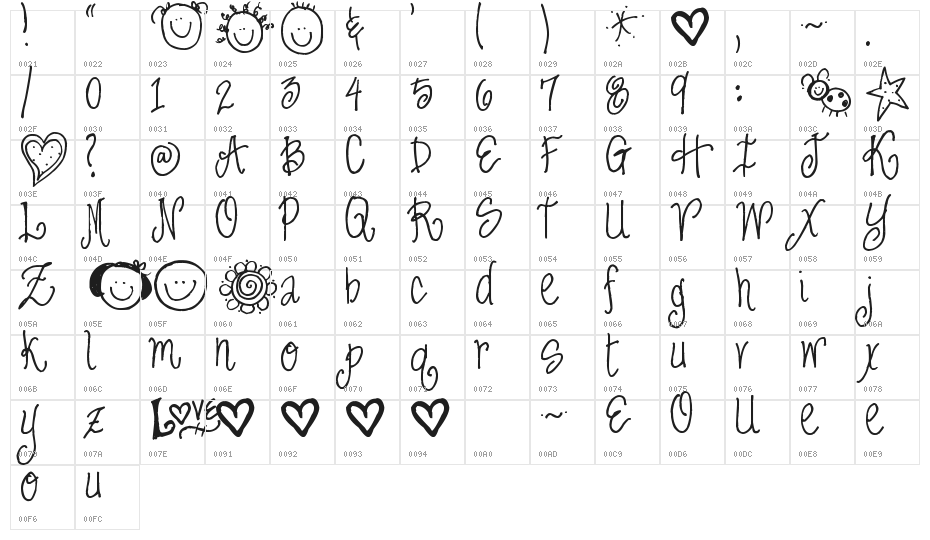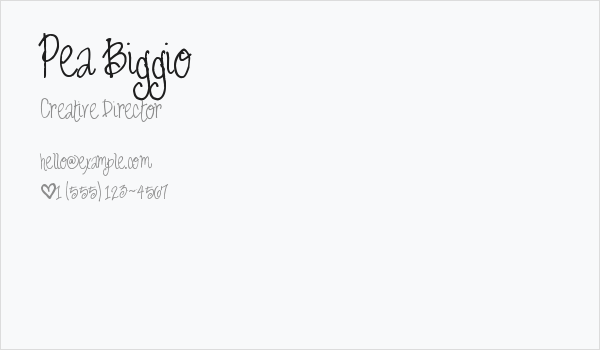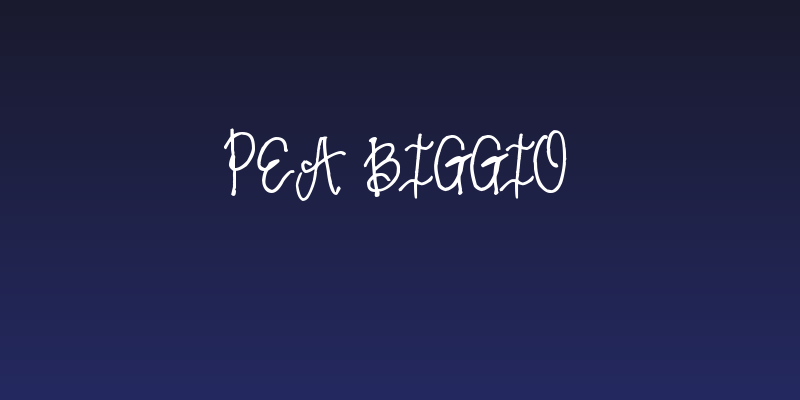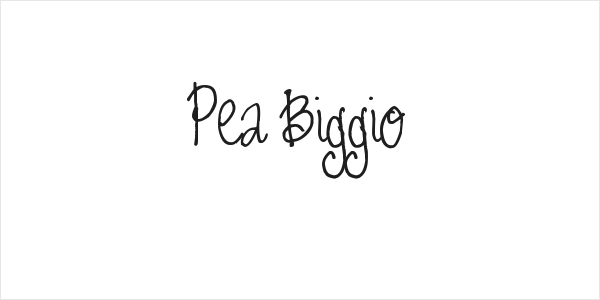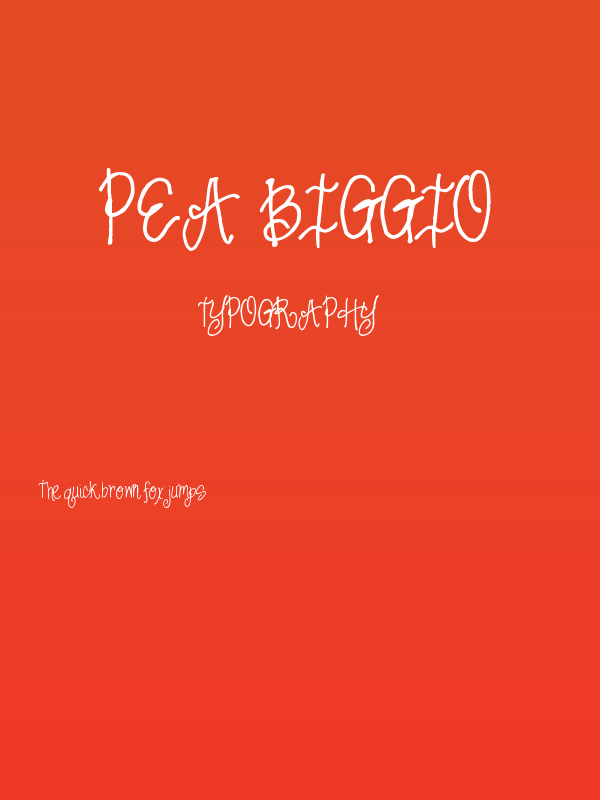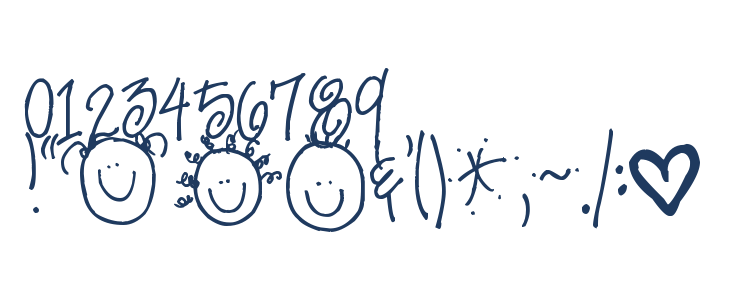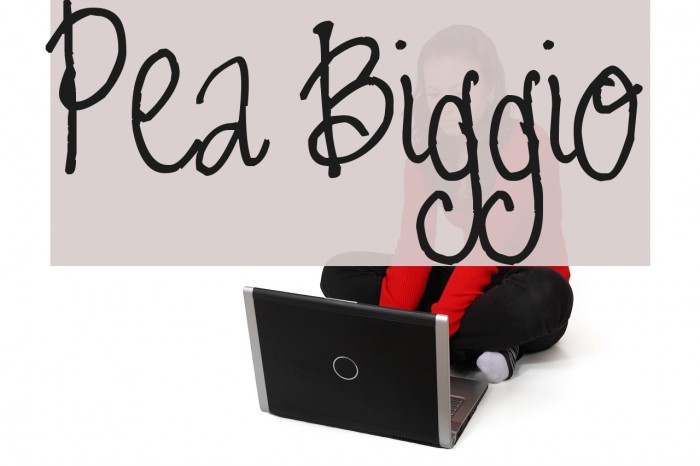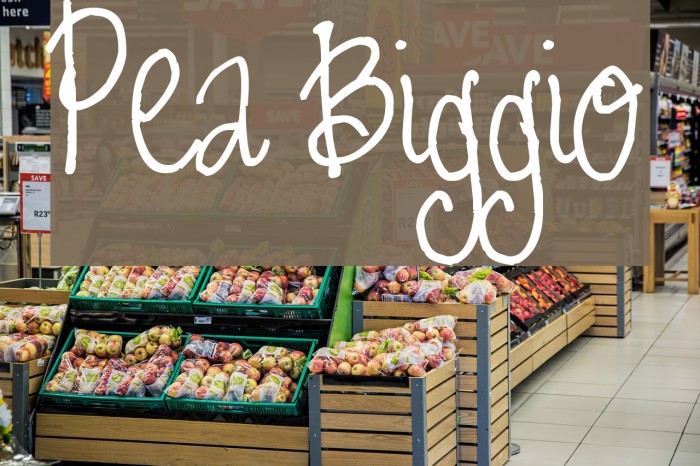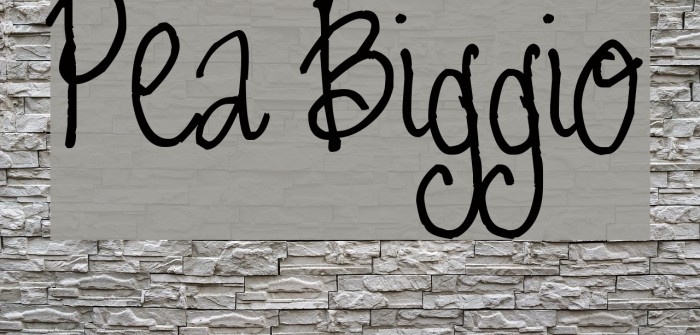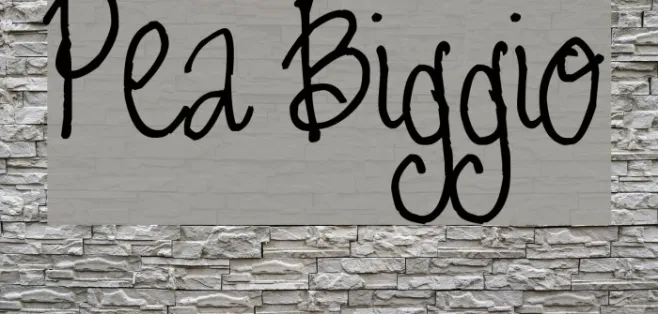
Pea Biggio Font
Pea Biggio Description
This playful and whimsical font features a handwritten style with a casual, friendly appearance. The letters are characterized by their uneven strokes and slightly irregular shapes, giving it a personal touch. The uppercase and lowercase letters maintain a consistent style, with a slight slant and varying line thickness that adds to its charm. The numbers and special characters follow the same playful design, making it suitable for creative and informal projects. The font's unique style is enhanced by its hand-drawn look, which adds a sense of warmth and approachability.
| Use Case | Headlines, Logos, Informal Text |
| Proposed Projects | Ideal for greeting cards, children's books, playful branding, and casual invitations. |